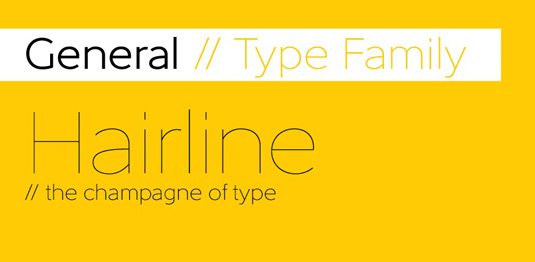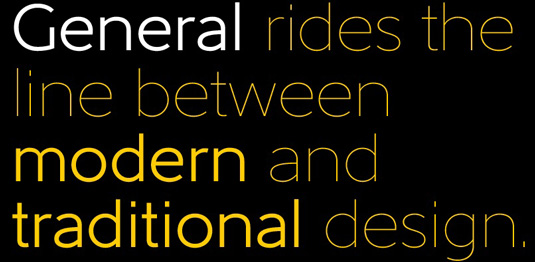
Font of the day: General
Every day we showcase the best fonts on the web. Today it's General by Juraj Chrastina.
General by Juraj Chrastina
Perfect for minimal design, today's typeface of choice General was created by graphic and type designer Juraj Chrastina. Available from HypeForType, the design is described as being 'inspired by classical fonts from the early 20th century, General rides the line between traditional and modern styles. With its 5 light weights, the General family is a strong tool for a clean design'.